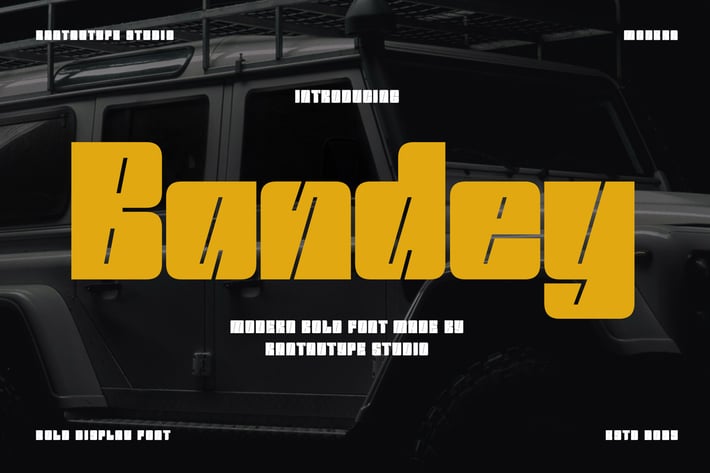
Bandey Bold Condensed Font
Bandey is modern font with bold character. Bandey bring powerfull and authentic shape to make you design project stay bold. Bandey is a perfectly choice for any creative endeavor, chic, lifestyle design such as logotype, advertisements, watermark on photography, stationery, branding project, display and magazine, invitation, corporate brand, product design, label, business project and many other project with modern touch.